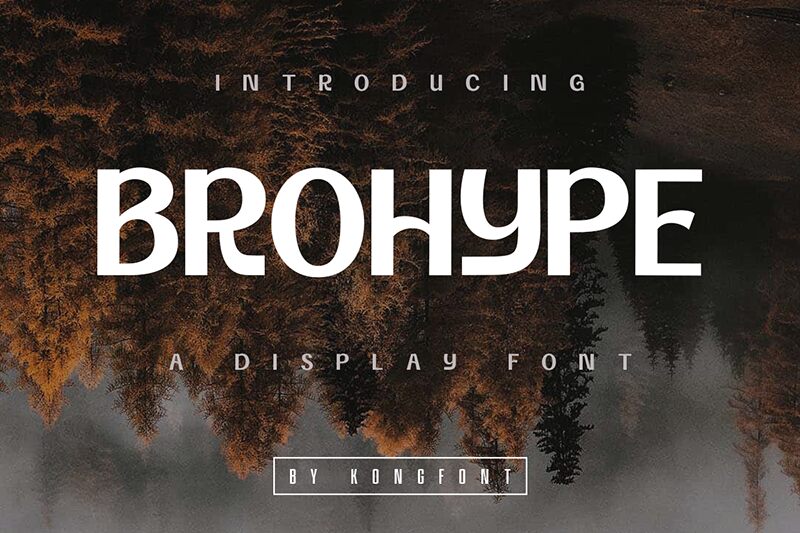
Brohype font by Kong Font is a bubbly, modern sans-serif font with smooth transitions and casual elegance. Its contemporary appeal makes it ideal for diverse designs where a modern touch is desirable. Brohype’s design combines simplicity and style to give each letter legibility and distinctiveness.